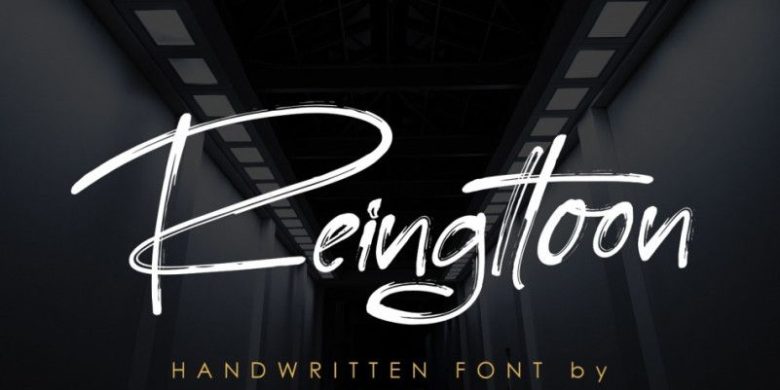
Reingttoon Font
Reingttoon Font is a handmade font with a brush that is so soft, perfect for your next design, such as logos, printed quotes, invitations, cards, product packaging, headers and anything else about your imagination.
Designed by Suandana Ipandemade, Reingttoon is a script font family. This typeface has two styles and was published by madeDeduk.